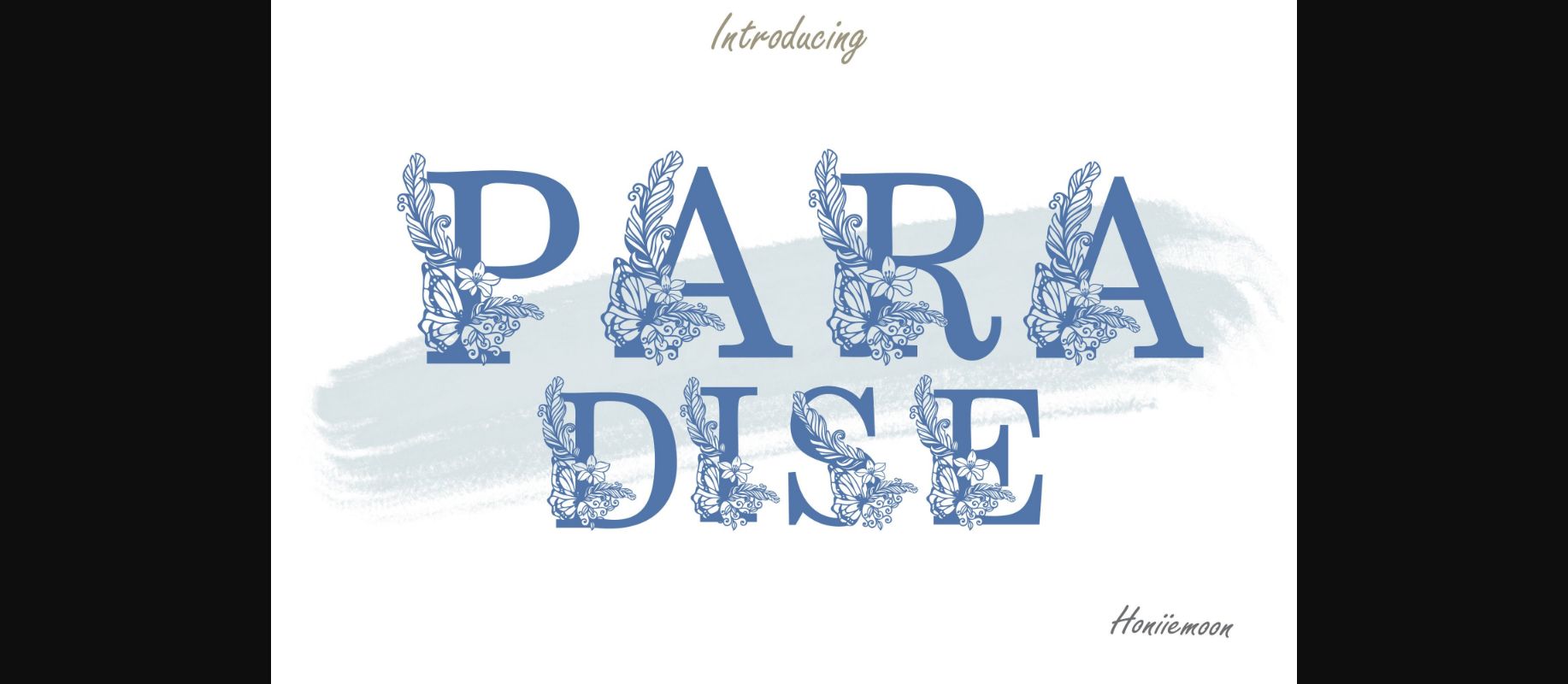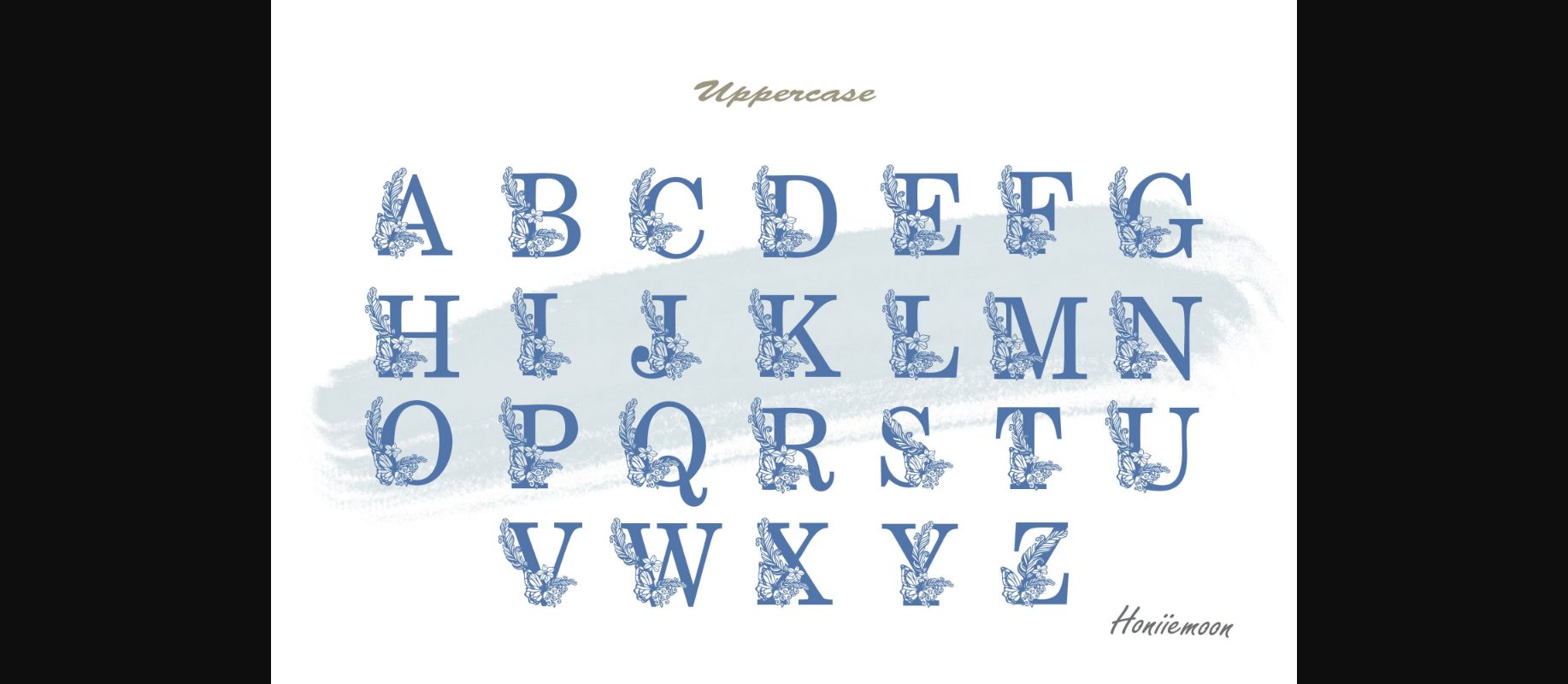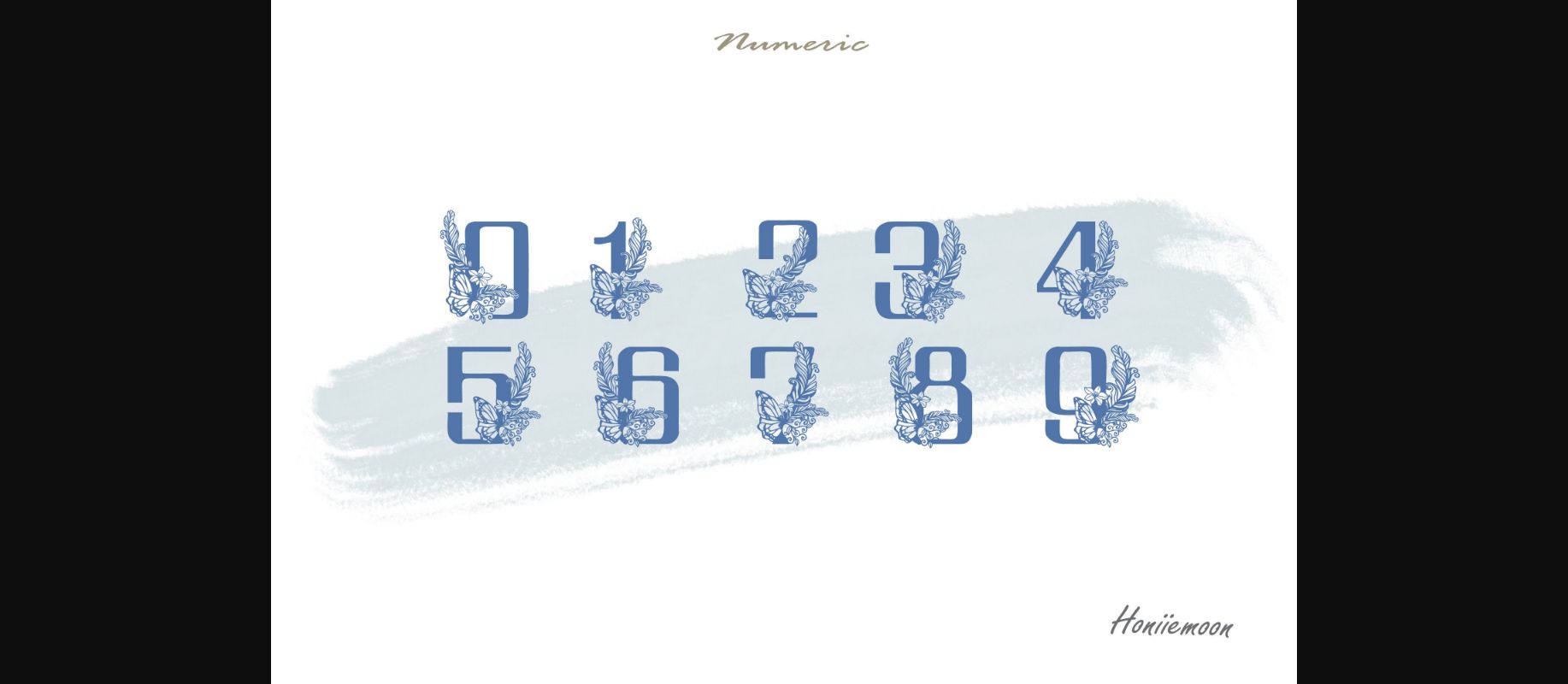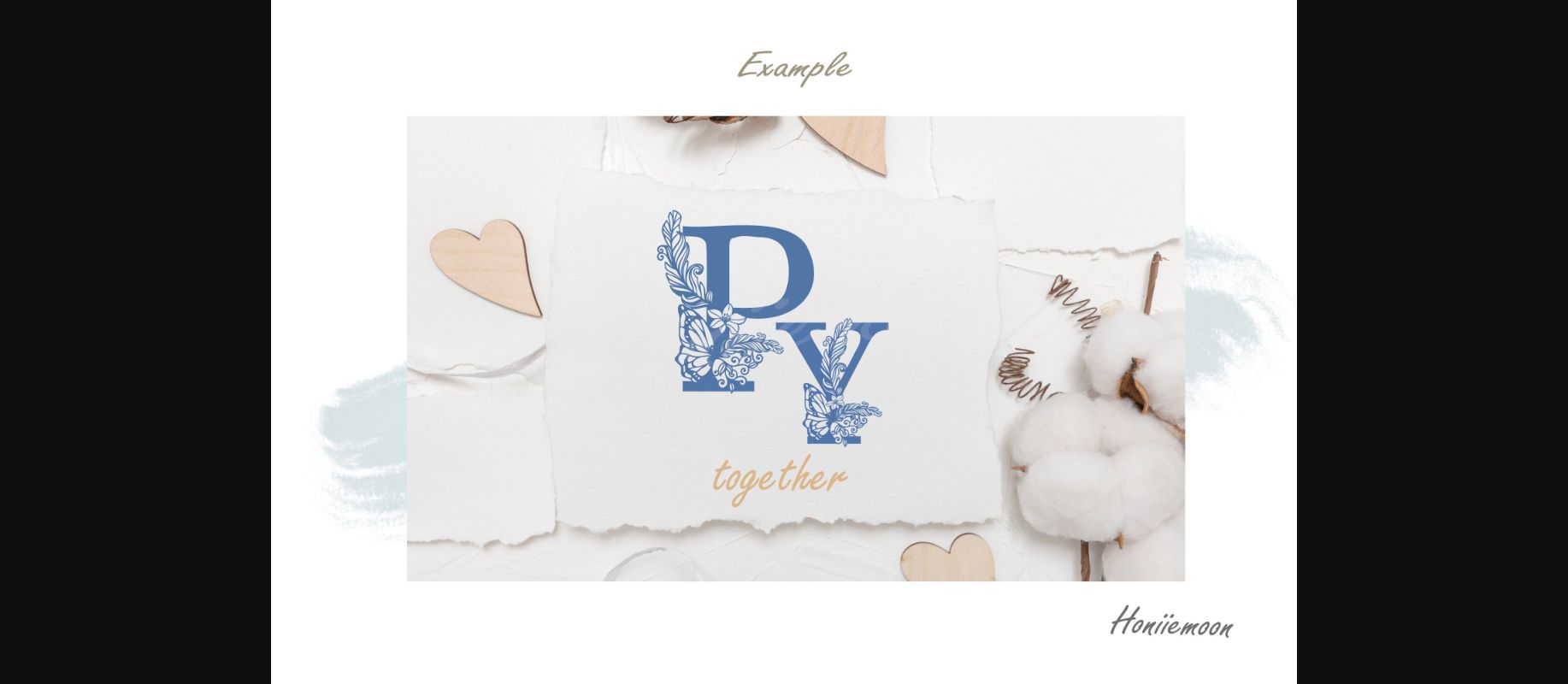
HomeDecorative FontsParadise Font Decorative Fonts Paradise Font FacebookXPinterestWhatsApp 1 of 6 ... Paradise Font Poster 2... Paradise Font Poster 3... Paradise Font Poster 4... Paradise Font Poster 5... Paradise Font Poster 6... About Paradise Font Paradise is a cool and fun decorative font perfect for adding an original floral accent to your creative ideas! DOWNLOAD NOW People also explored Matyane Font Blambangan Font Goldberry Font Wootter Font Love Rosnita Duo Font Thunderbirds Font Pathway Artistry Font Darkness Rising My Lovely Font 319 0 TagsParadise Font Previous articleMega Queen FontNext articleDaisy Inside Font LEAVE A REPLY Cancel reply Comment: Please enter your comment! Name:* Please enter your name here Email:* You have entered an incorrect email address! Please enter your email address here Website: Save my name, email, and website in this browser for the next time I comment. Personal Use Free Waverly Date Personal Use Free Read more about this font Scarlove Personal Use Free Read more about this font The Brighton Personal Use Free Read more about this font Densmore Personal Use Free Read more about this font BLOG Modern Sans-Serif Fonts That Brands Love in 2025 In 2025, modern sans-serif fonts remain a top choice for brands looking to project clarity, professionalism, and... Fonts That Capture the Spirit of New York City Where to Buy American Fonts Online in 2024 How to Install and Use Fonts on Windows, macOS, and Web Projects